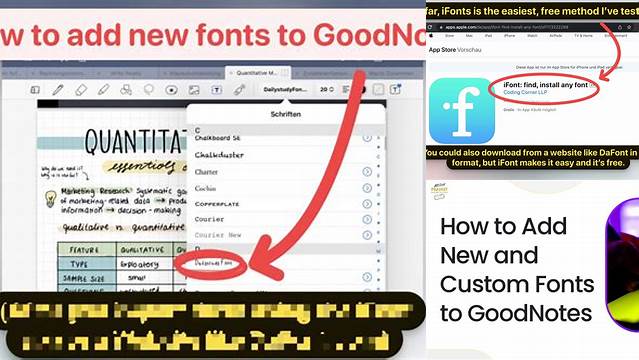
Adding custom fonts to GoodNotes can significantly enhance your note-taking and document creation experience. If you're looking to personalize your notes and make them visually appealing, incorporating fonts from websites like DaFont is a fantastic way to do it. This comprehensive guide will walk you through the process step-by-step, ensuring you can easily add your favorite fonts to GoodNotes and elevate your digital note-taking game.
Why Add Custom Fonts to GoodNotes?
Before we dive into the how-to, let's explore why adding custom fonts to GoodNotes is a worthwhile endeavor. Fonts play a crucial role in the overall aesthetic and readability of your notes. The default fonts in GoodNotes are functional, but they may not always align with your personal style or the specific tone you want to convey in your documents. By adding fonts from DaFont, you gain access to a vast library of unique typefaces that can:
- Enhance Visual Appeal: Custom fonts can make your notes more visually engaging and less monotonous. This is especially helpful for students who want to make their study materials more captivating or professionals who need to create visually appealing presentations.
- Improve Readability: Certain fonts are designed for optimal readability, which can reduce eye strain and make it easier to digest information. Choosing the right font can significantly improve your note-taking and reading experience.
- Personalize Your Notes: Using custom fonts allows you to express your personality and style in your notes. Whether you prefer elegant script fonts or bold, modern typefaces, you can tailor your notes to reflect your unique taste.
- Create a Consistent Brand: If you use GoodNotes for professional purposes, custom fonts can help you maintain a consistent brand identity across all your documents. This is particularly useful for entrepreneurs, educators, and content creators.
- Highlight Important Information: Different fonts can be used to emphasize key points, headings, or quotations. This helps to create a visual hierarchy in your notes, making it easier to locate and remember crucial details.
Understanding DaFont and Font Compatibility
DaFont is a popular online resource for downloading free fonts. It offers a wide variety of fonts, ranging from elegant scripts to playful display faces. However, before you start downloading fonts, it's essential to understand font compatibility and licensing.
- Free for Personal Use: These fonts can be used for personal projects, such as note-taking, journaling, or creating personal documents. You typically don't need to pay a fee to use these fonts.
- Free for Commercial Use: These fonts can be used for both personal and commercial projects without any restrictions. However, it's always a good practice to credit the font designer when using these fonts in your work.
- Shareware/Donationware: These fonts are free to use, but the designer may request a donation or payment if you find the font useful. It's a way to support the designer's work and encourage them to create more fonts.
- Commercial License Required: If you plan to use a font for business purposes, such as creating marketing materials, logos, or products for sale, you'll likely need to purchase a commercial license from the font designer. Always respect the font license to avoid copyright infringement issues.
Choosing the Right Fonts
Selecting the right fonts for your notes can significantly impact their readability and visual appeal. Consider the following factors when choosing fonts from DaFont:
- Readability: Opt for fonts that are easy to read, especially for large blocks of text. Sans-serif fonts like Helvetica or Arial are often preferred for their clarity, but there are also many serif fonts that offer excellent readability.
- Style: Choose fonts that align with your personal style and the tone of your notes. Elegant script fonts can add a touch of sophistication, while bold fonts are great for headings and emphasis.
- Consistency: Use a limited number of fonts (2-3) in your notes to maintain a consistent and professional look. Overusing fonts can make your notes look cluttered and disorganized.
- Purpose: Select fonts that are appropriate for the purpose of your notes. A playful font might be suitable for personal journaling, but a more professional font is better for business documents.
Step-by-Step Guide: Adding Fonts to GoodNotes from DaFont
Now that you understand the basics of fonts and licensing, let’s get into the step-by-step process of adding fonts to GoodNotes from DaFont. This process involves downloading the fonts, installing them on your iPad, and then importing them into GoodNotes.
Step 1: Download Fonts from DaFont
- Open Safari on Your iPad: DaFont works best on a desktop browser, but you can access the website on your iPad’s Safari browser.
- Go to DaFont.com: Type "DaFont.com" into the address bar and press Go. This will take you to the DaFont homepage, where you can browse thousands of fonts.
- Browse and Select Fonts: Use the search bar or the font categories to find fonts that you like. You can preview the fonts by typing in custom text to see how they look.
- Download the Font: Once you find a font you want to use, tap the "Download" button next to the font name. The font file, which is usually in a ZIP archive, will be downloaded to your iPad. You can find the downloaded file in the "Downloads" folder in the Files app.
Step 2: Install the Font on Your iPad
Before you can use the font in GoodNotes, you need to install it on your iPad. This is done through a font installation app. Here’s how:
Unzip the Font File:
- Go to the "Downloads" folder in the Files app.
- Tap on the ZIP file you downloaded from DaFont.
- The Files app will automatically extract the contents of the ZIP file into a new folder.
- Open the extracted folder to find the font files (.ttf or .otf).
Use a Font Installation App: While iOS doesn’t have a built-in font installation feature, you can use third-party apps like iFont or AnyFont to install fonts. These apps are available for free on the App Store.
Install iFont (Optional): If you don’t have iFont installed, download it from the App Store. iFont is a popular app that makes font installation easy.
Open iFont and Import the Font:
- Open the iFont app.
- Tap the "Files" tab.
- Navigate to the folder where you extracted the font files.
- Tap on the font file (.ttf or .otf) you want to install.
Install the Font Profile:
- After selecting the font, iFont will show a preview of the font.
- Tap the "Install" button.
- You’ll be redirected to the iPad’s Settings app.
- Tap "Install" in the top-right corner.
- If prompted, enter your iPad’s passcode and tap "Install" again.
- A warning message about installing a profile might appear. This is a standard iOS security measure. Tap "Install" to proceed.
- The font profile is now installed on your iPad.
Step 3: Import the Font into GoodNotes
Now that the font is installed on your iPad, you can use it in GoodNotes. Here’s how to import it:
- Open GoodNotes: Launch the GoodNotes app on your iPad.
- Create a New Notebook or Open an Existing One: You can add fonts to any notebook in GoodNotes.
- Select the Text Tool: Tap the text tool icon (the letter "T") in the toolbar.
- Tap the Font Menu: In the text toolbar, tap the font name to open the font menu.
- Find Your Installed Font: Scroll through the list of fonts to find the font you installed from DaFont. It should appear in the list along with the default GoodNotes fonts.
- Select the Font: Tap on the font name to select it. The text you type will now appear in the new font.
- Start Using the Font: You can now use the new font in your notes, headings, and other text elements. Experiment with different font sizes and colors to create visually appealing notes.
While the process of adding fonts to GoodNotes is generally straightforward, you might encounter some issues. Here are a few common problems and how to troubleshoot them:
Font Doesn’t Appear in GoodNotes:
- Check Installation: Make sure the font is properly installed on your iPad using a font installation app like iFont. If the installation was not successful, try reinstalling the font profile.
- Restart GoodNotes: Sometimes, GoodNotes needs to be restarted to recognize newly installed fonts. Close the app completely and reopen it.
- Restart Your iPad: If restarting GoodNotes doesn’t work, try restarting your iPad. This can help refresh the system and ensure that the font is recognized.
Font Looks Different in GoodNotes:
- Font Format: Ensure that the font file is in a compatible format (.ttf or .otf). If you downloaded a different format, it might not display correctly in GoodNotes.
- Font Rendering: Some fonts may not render perfectly in GoodNotes due to compatibility issues. Try a different font or contact the font designer for assistance.
Font Installation Fails:
- Profile Installation: Make sure you’ve allowed profile installations in your iPad’s settings. Go to Settings > General > Profiles & Device Management and ensure that the font profile is trusted.
- Corrupted Font File: The font file might be corrupted during download. Try downloading the font again from DaFont.
Tips for Using Custom Fonts Effectively in GoodNotes
Adding custom fonts to GoodNotes is just the first step. To make the most of your new fonts, here are some tips for using them effectively:
- Use Fonts Sparingly: While it’s tempting to use a variety of fonts, stick to a maximum of 2-3 fonts in your notes. This will help maintain a clean and professional look.
- Choose Readable Fonts for Body Text: Select fonts that are easy to read for large blocks of text. Sans-serif fonts are often a good choice for body text.
- Use Decorative Fonts for Headings: Decorative fonts can add flair to your headings and titles. Use them sparingly to draw attention to important sections of your notes.
- Maintain Consistency: Use the same fonts throughout your notes to create a consistent visual style. This will make your notes look more polished and professional.
- Experiment with Font Sizes and Colors: Adjust the font size and color to emphasize key points and create a visual hierarchy in your notes.
- Consider the Overall Design: Think about the overall design of your notes, including font choices, colors, and layout. A well-designed notebook can enhance your note-taking experience and make your notes more effective.
Adding custom fonts to GoodNotes from DaFont is a simple yet powerful way to personalize your digital note-taking experience. By following this comprehensive guide, you can easily download, install, and use your favorite fonts in GoodNotes. Remember to respect font licenses, choose fonts wisely, and use them effectively to create visually appealing and highly readable notes. So guys, go ahead and make your notes shine with your unique style and flair!